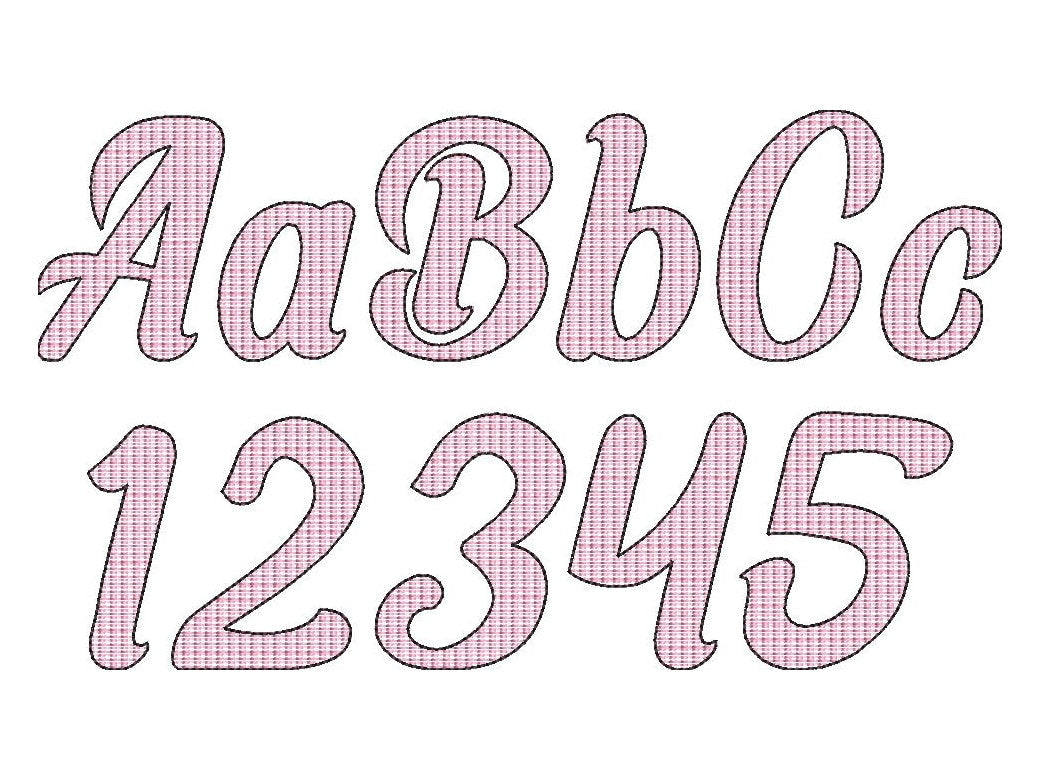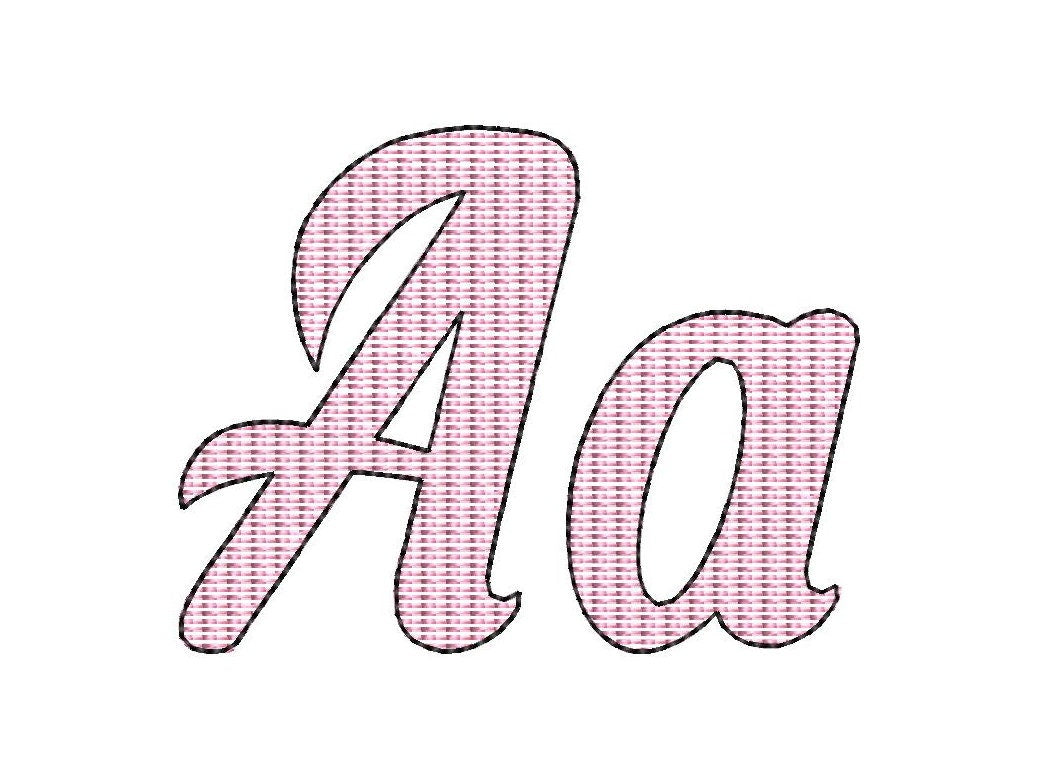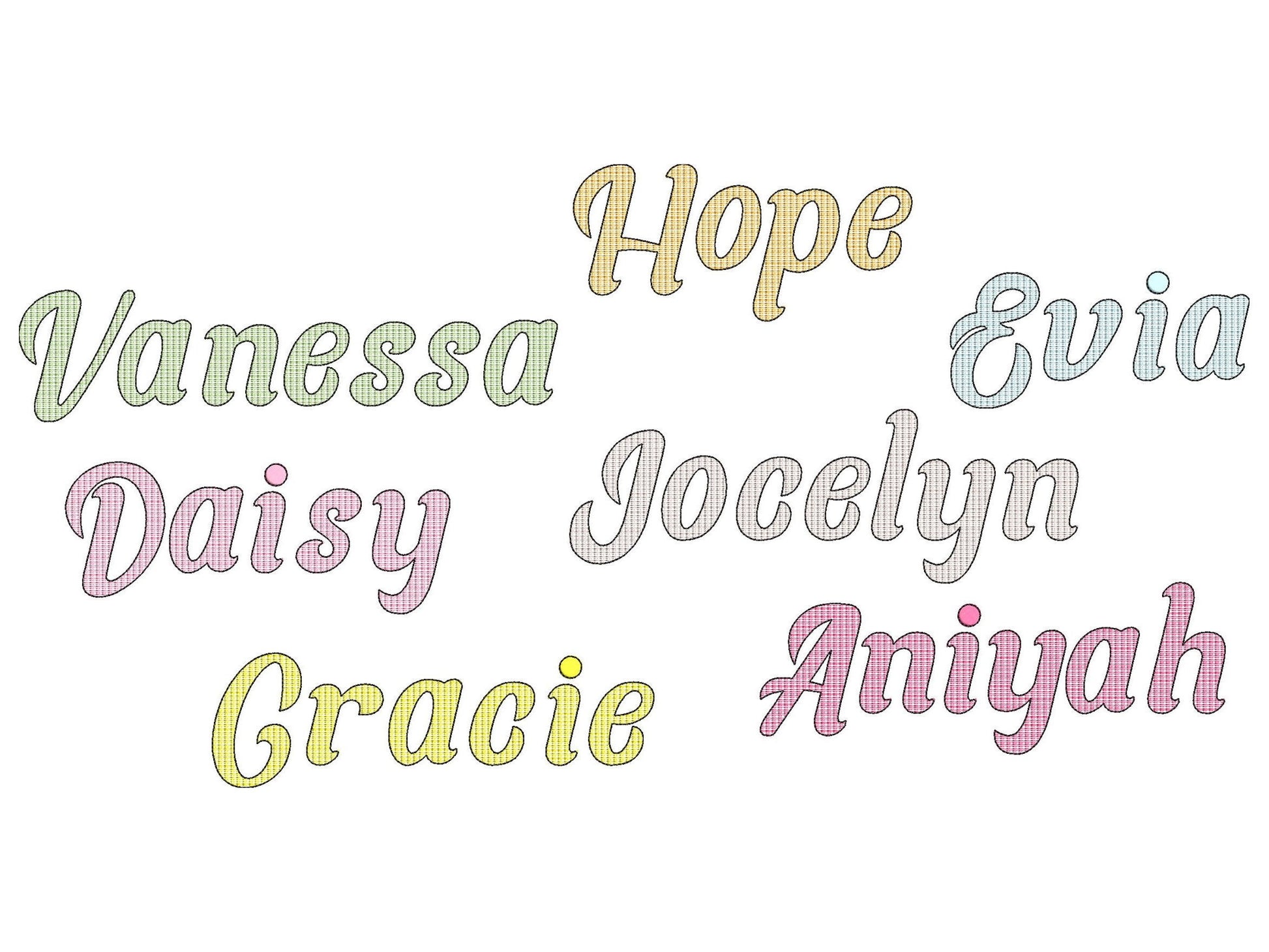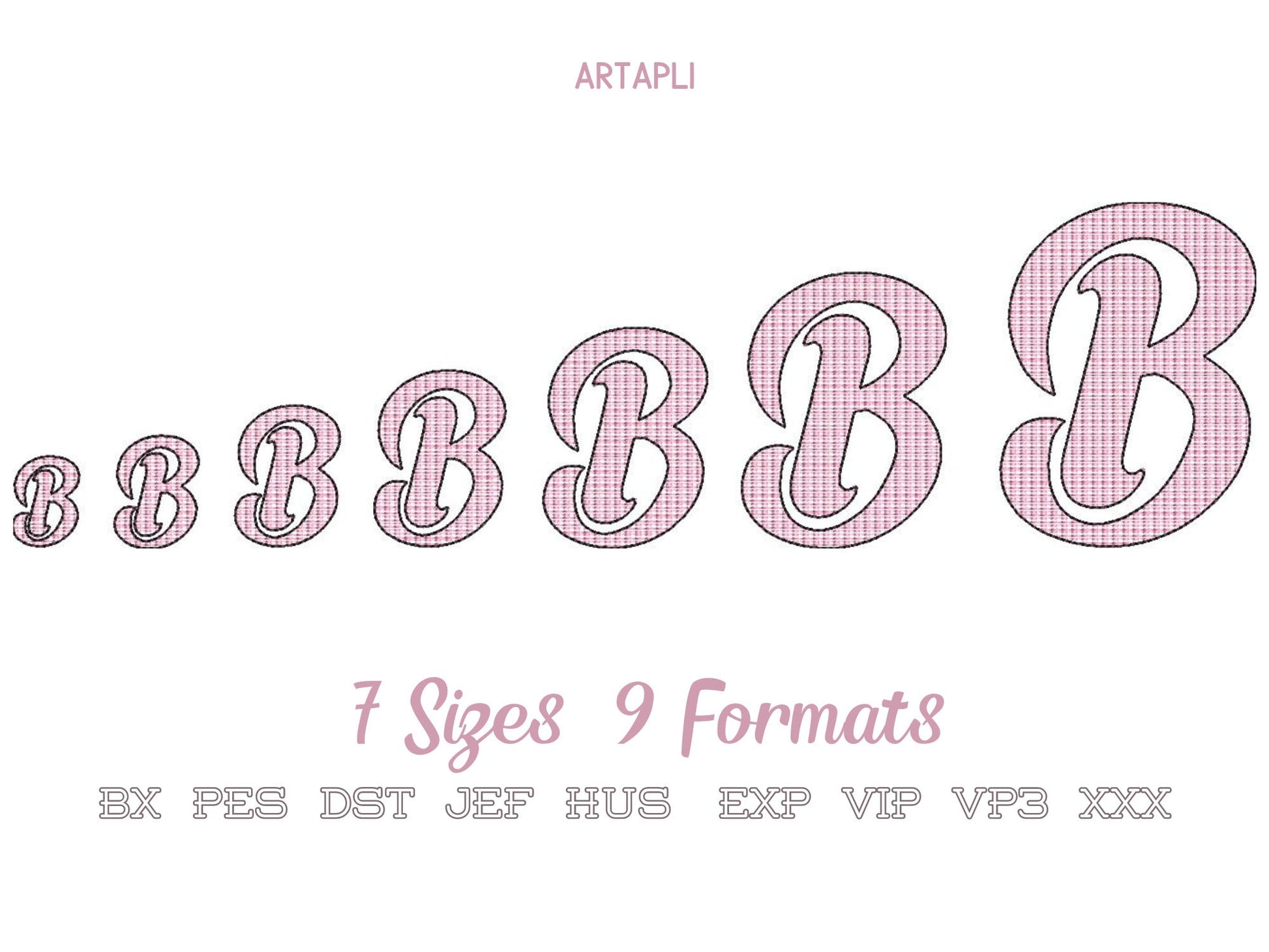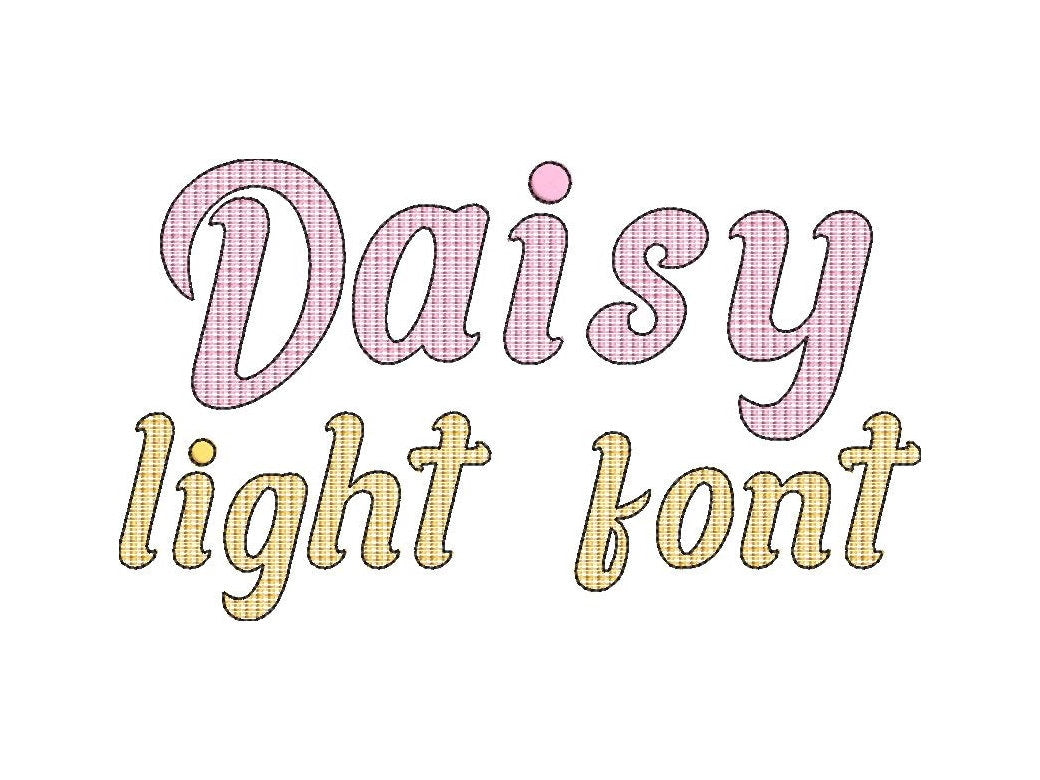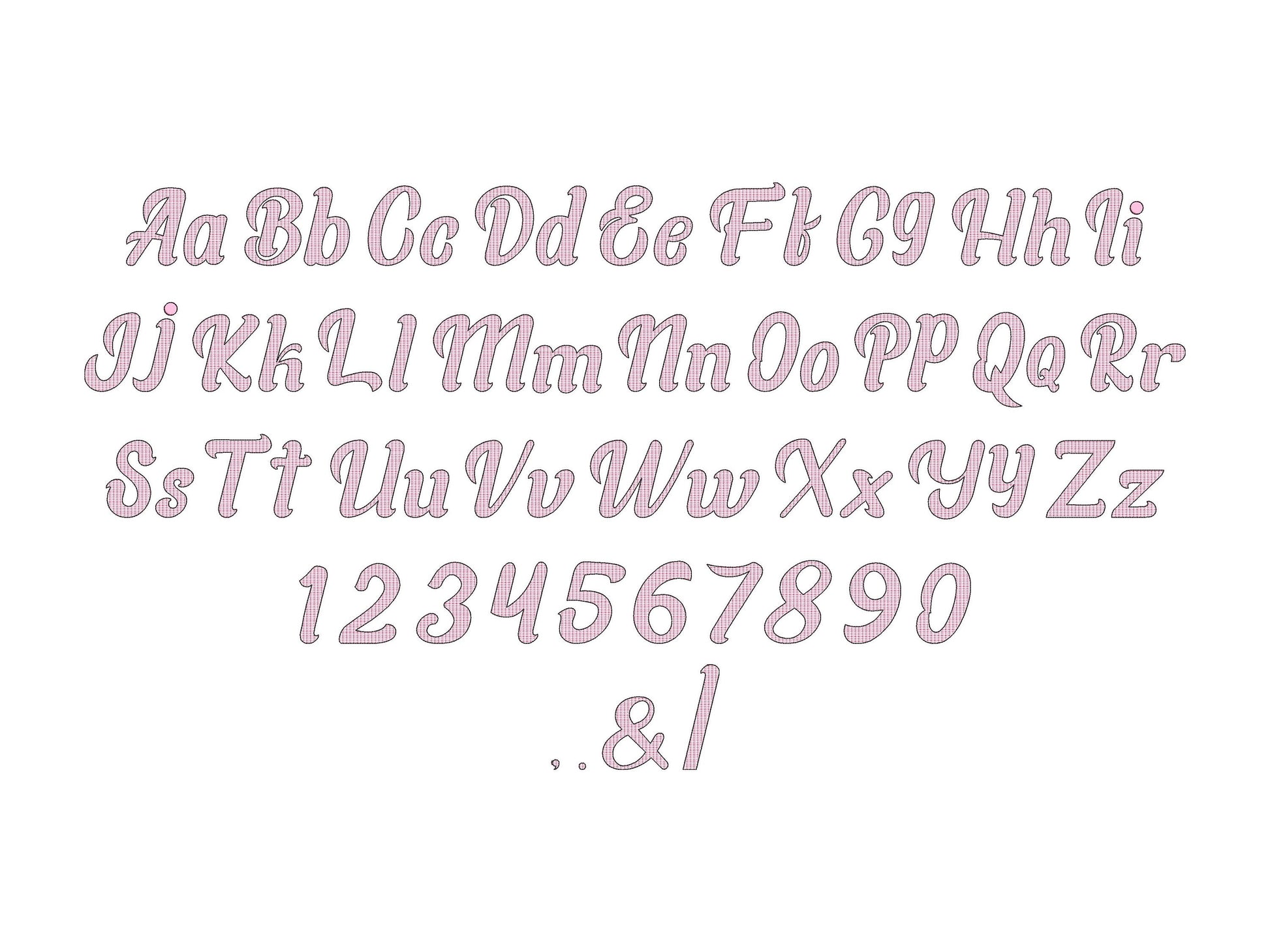
Or click to open the linkQuick light Font, light bean stitch machine embroidery designs alphabet letters in many sizes, kids baby boy girl name monogram, BX included
This font is a quick stitch and it has a low density, light fill stitch and bean stitch outline, it looks best on white or light color fabrics, also with Mylar.
The background fabric looks through. Stunning effect!
Included uppercase and lowercase letters, numbers and punctuation.